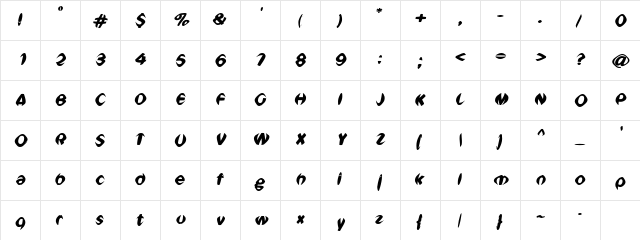
Dross01DarkSlanted Regular
Design Context for Dross01DarkSlanted Typeface
Dross01DarkSlanted is a composed and adaptable typeface that performs quietly and consistently across a wide range of design contexts. The slanted form adds forward momentum and visual energy.
Pro Tip: Use Dross01DarkSlanted for emphasis, pull quotes, and subheadings where its slanted energy can add rhythm to the layout.